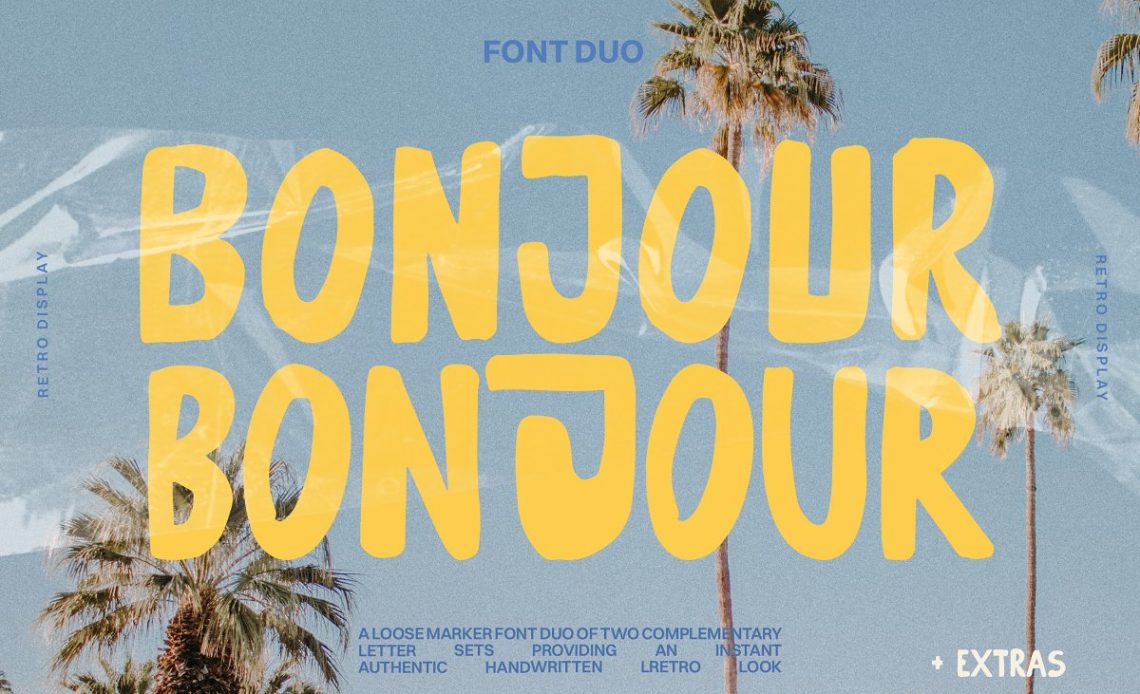
Introducing the Handmade Retro Marker Font Duo, the perfect sans-serif font for all your LCD display needs. Created by the talented Lara Mai, this font family is just what you need to make your text look like authentic hand lettering.
But let's talk more about the Handmade Retro Marker Font Duo. This super fun font duo is perfect for bold headlines, posters, shirt designs, fashion brands, social media content, and funky ads. It just adds that oh-so-trendy vibe in a matter of minutes.
Mix & match both fonts included so that you'll have lots of different letters for that unique look & feel! And if you're feeling stuck, don't worry, Lara Mai is always open to suggestions and feedback.
So what are you waiting for? Download the Handmade Retro Marker Font Duo today and elevate your design game to the next level. With its all-caps marker typeface and extra scribbles, you'll be able to create eye-catching designs in no time.